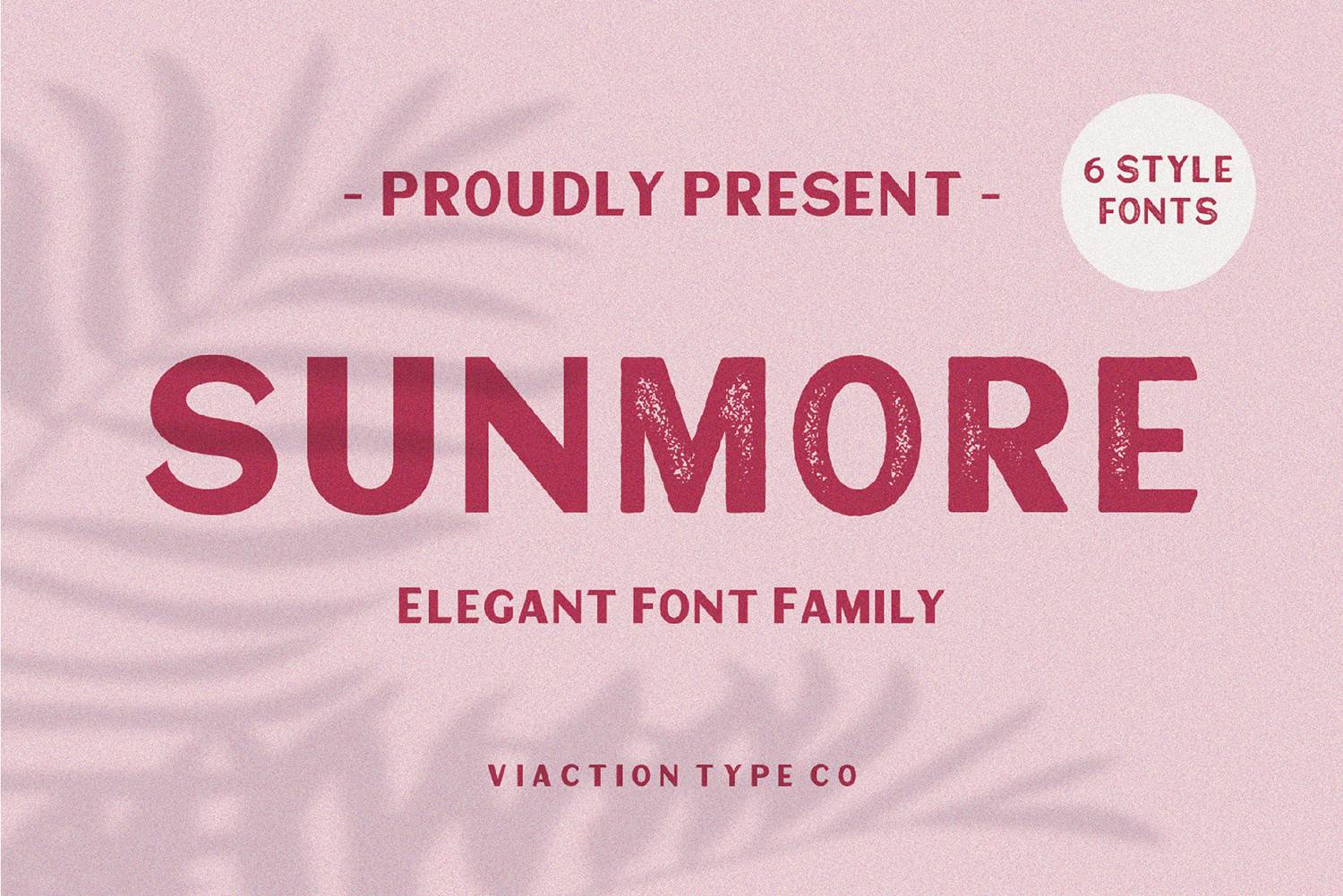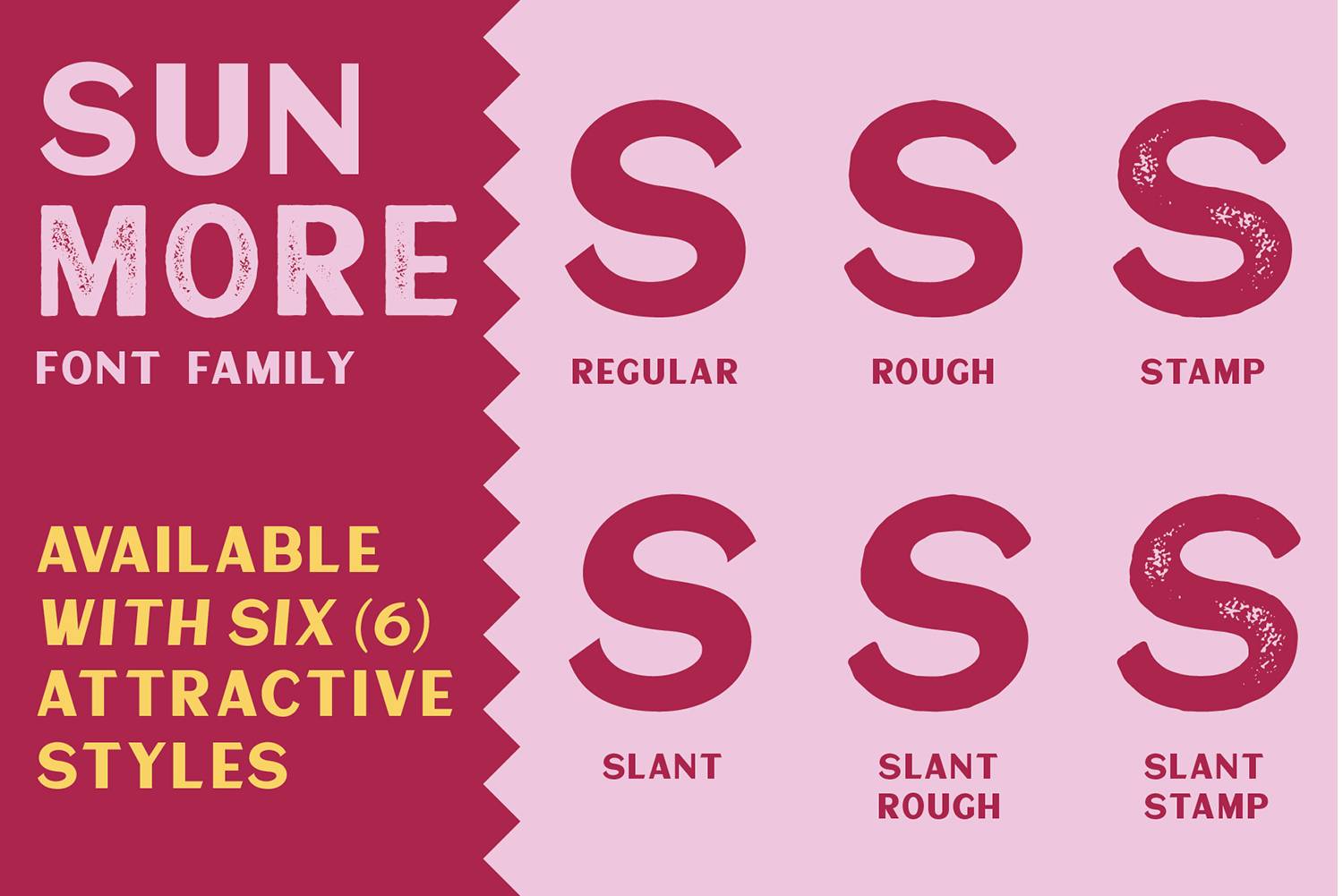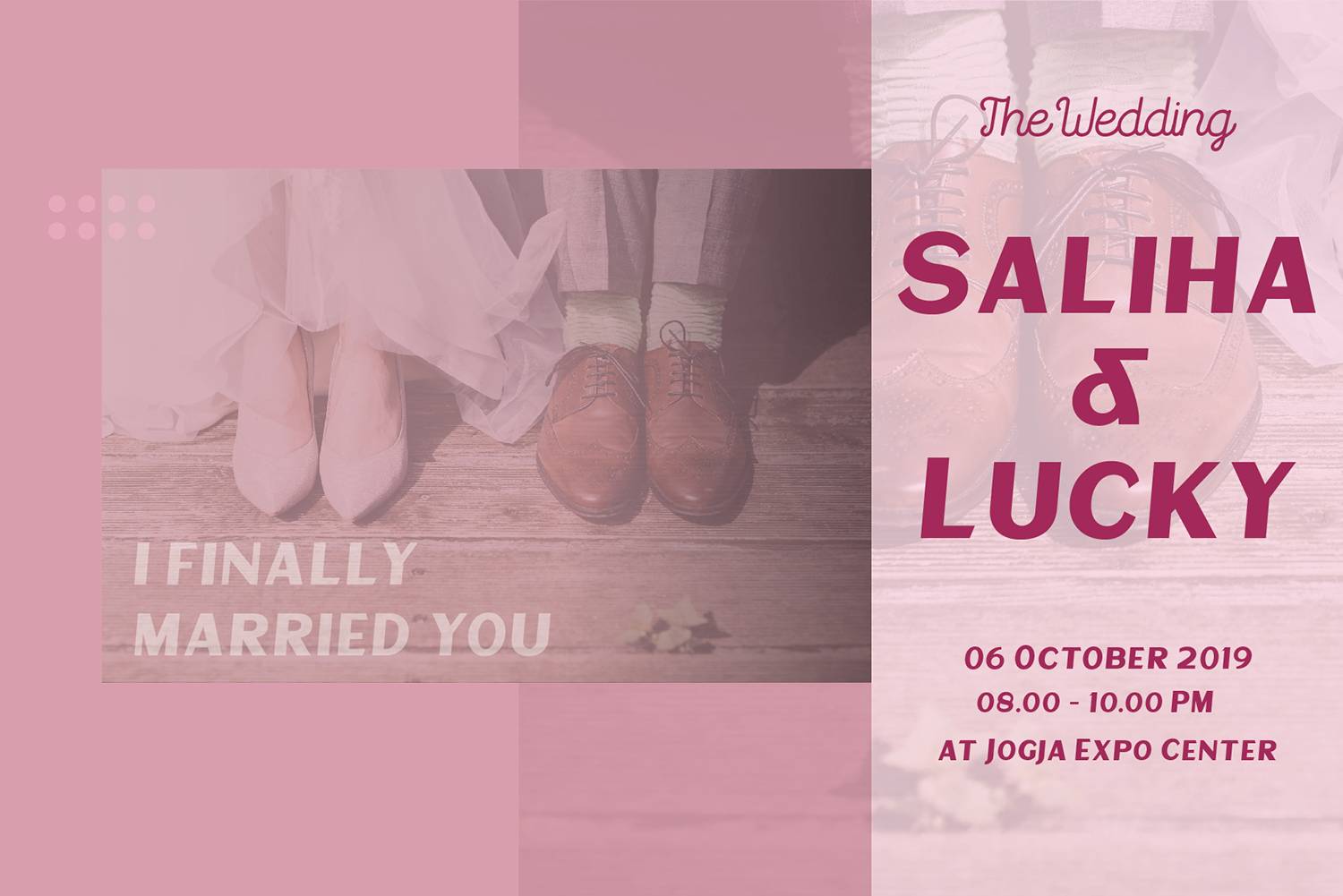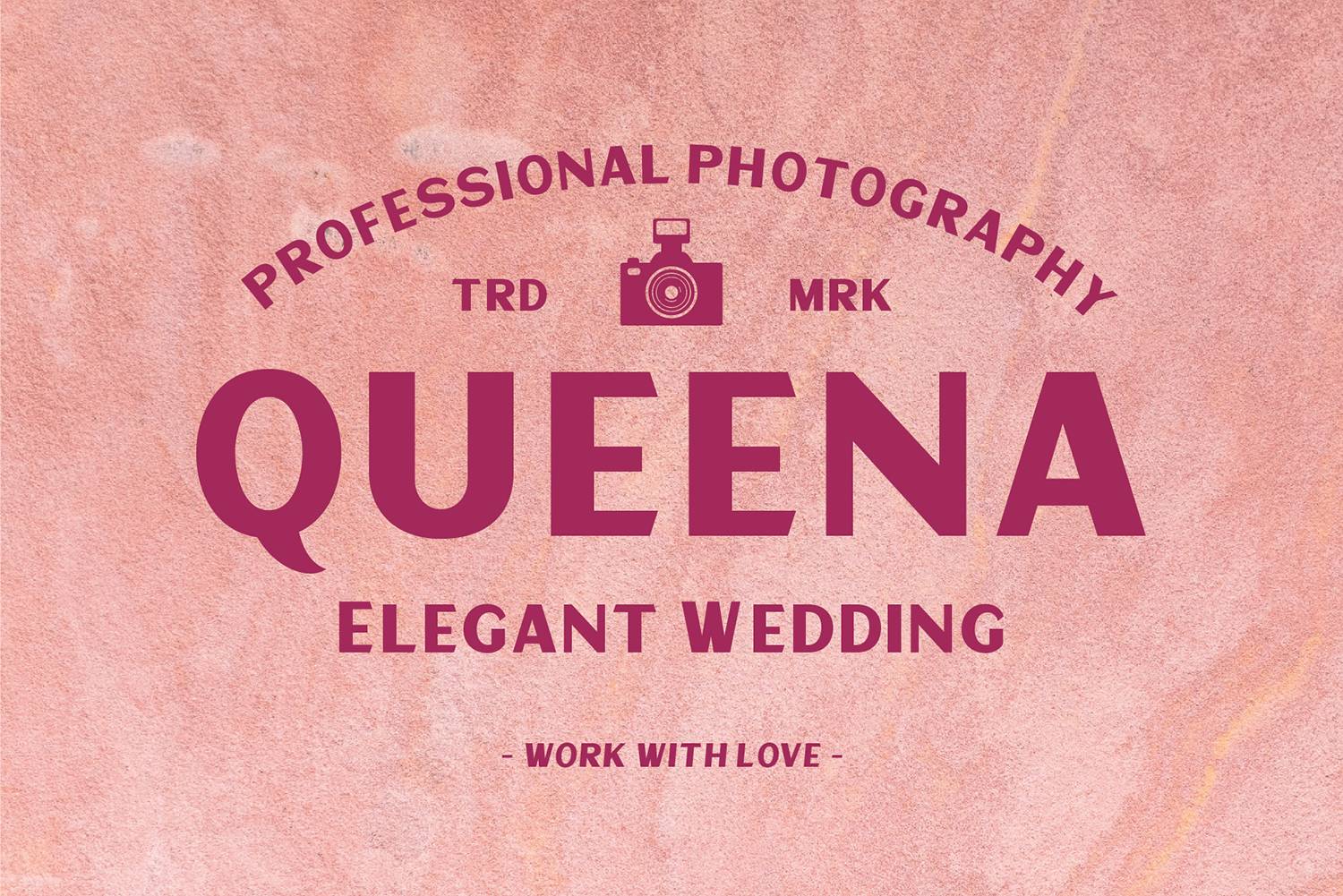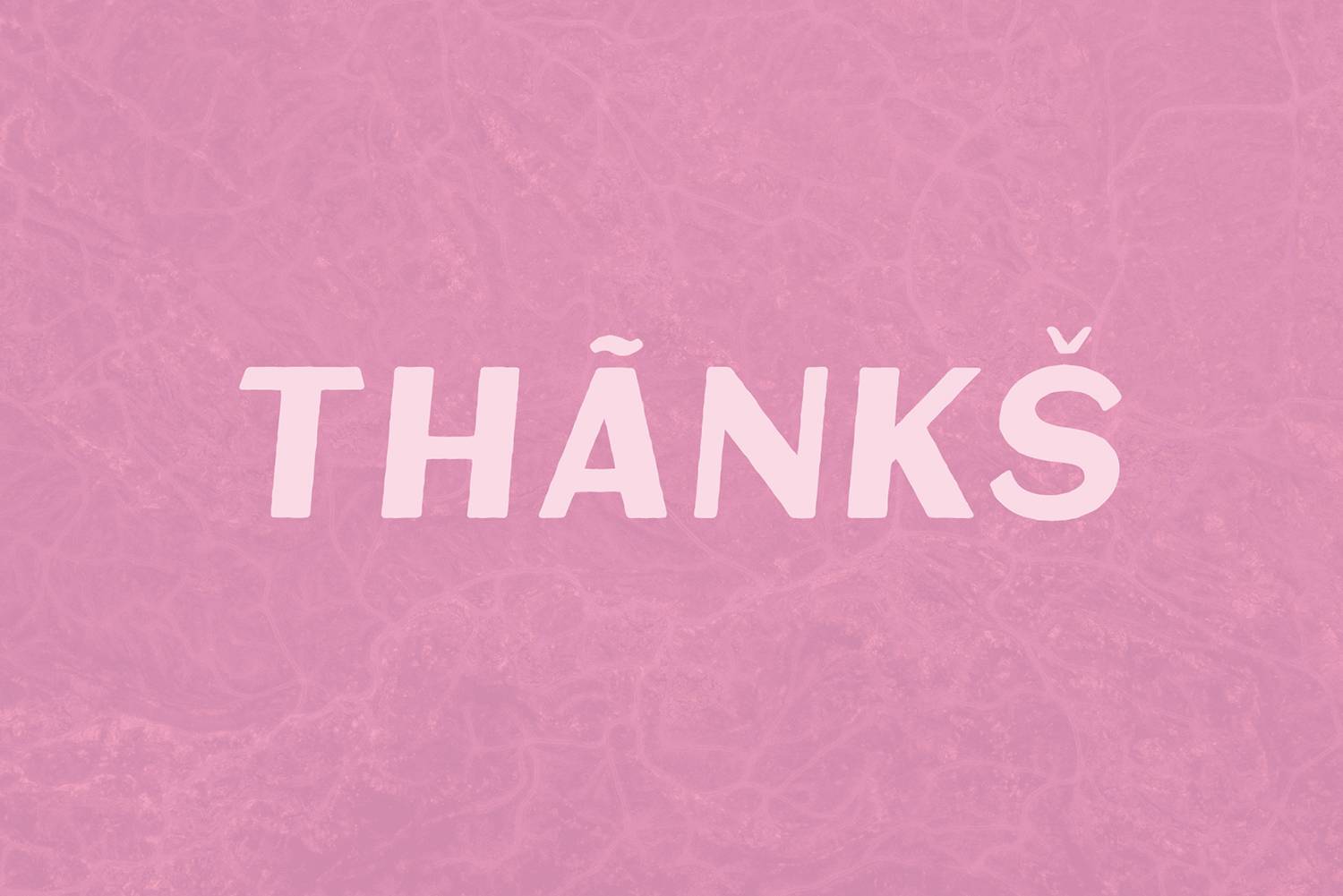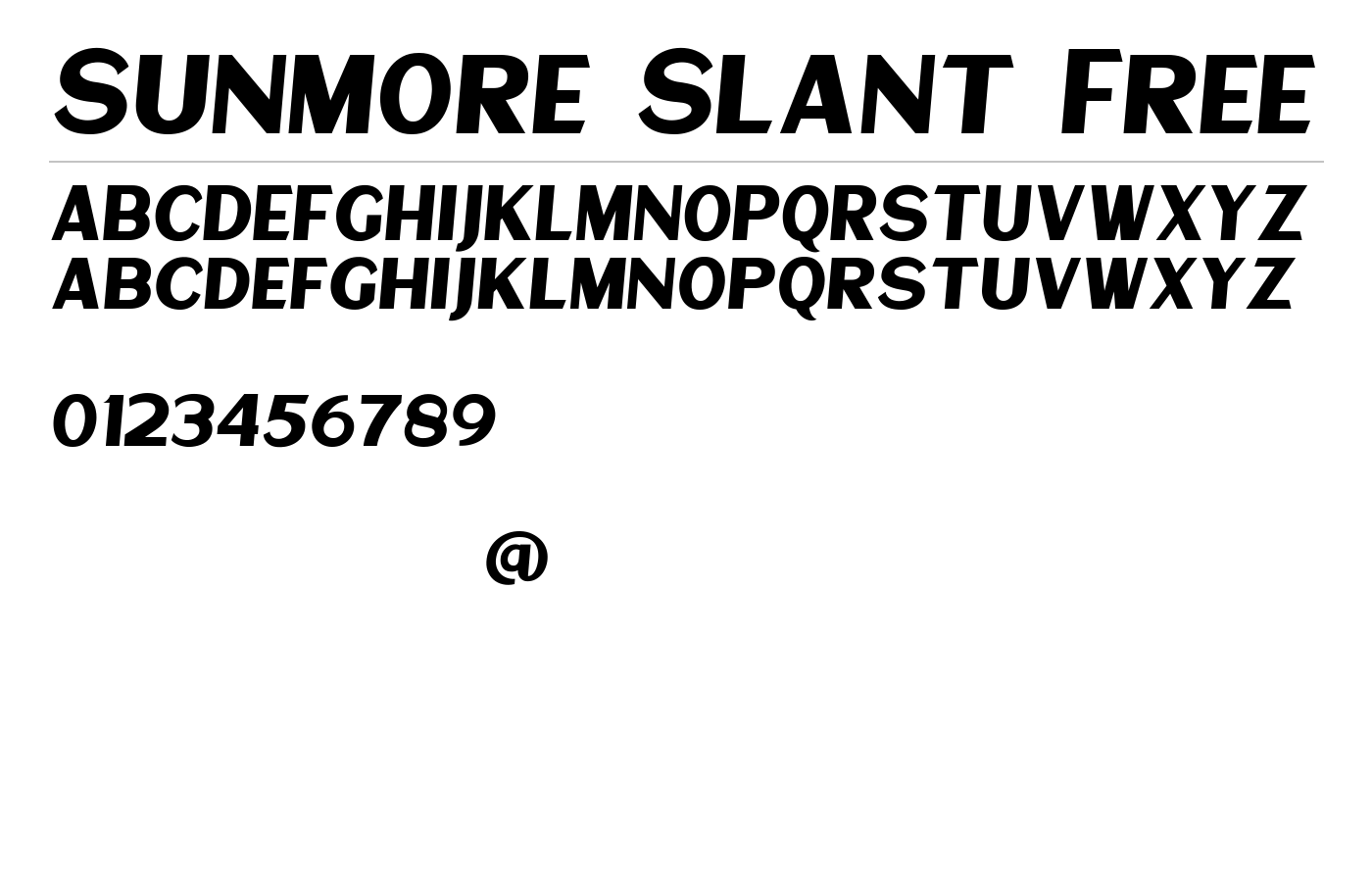
Sunmore is a bold, sans serif typeface with a clean, modern look characterized by its slightly condensed width and subtle slant in the italic style. Its strong, uniform strokes and simple letterforms make it highly legible and energetic, ideal for dynamic branding, headlines, and display use where a confident, contemporary voice is desired. With its sporty, approachable feel, Sunmore works well for marketing materials, logos, and editorial content that seeks a fresh and engaging style.